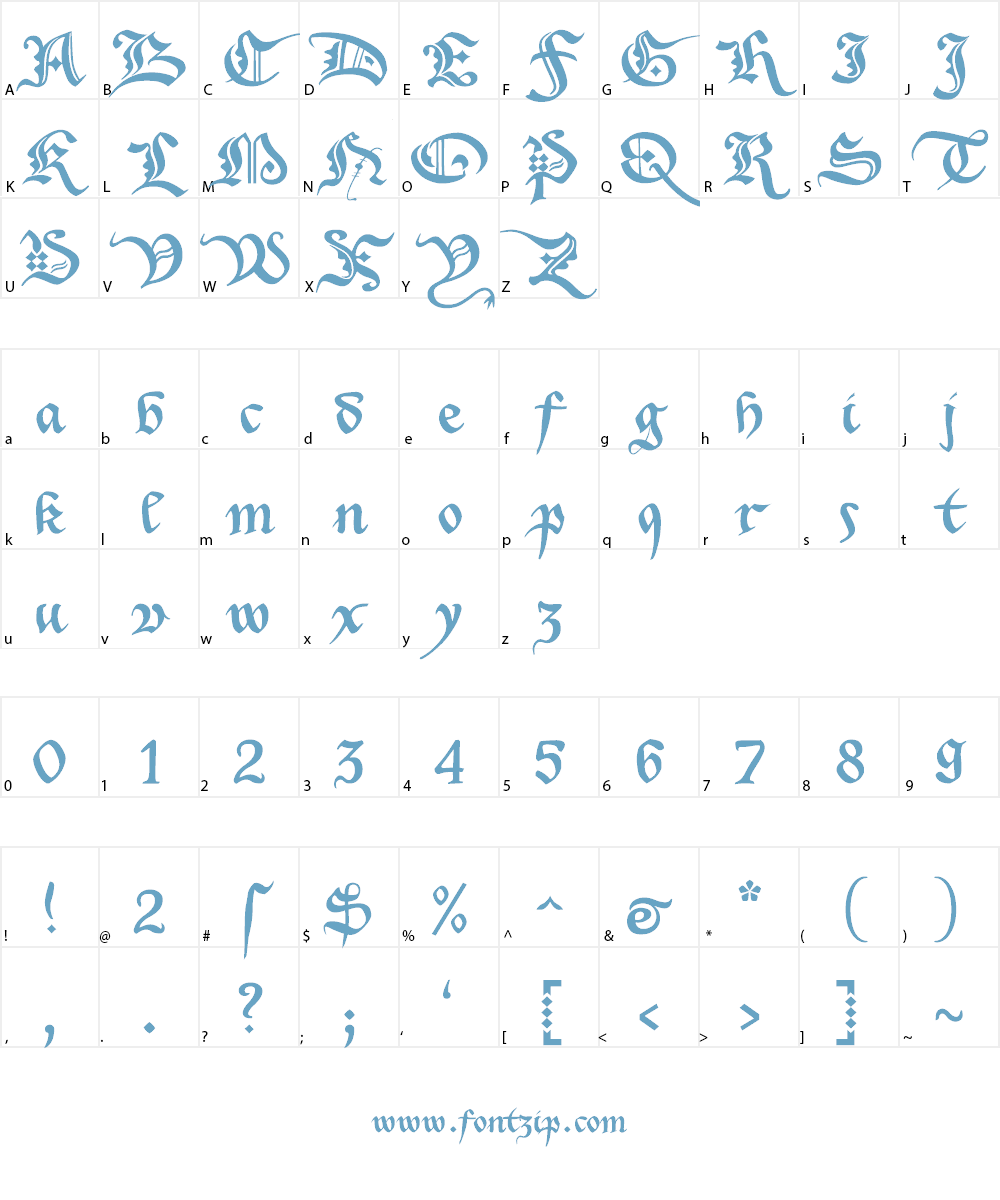
Based on French Bastarda writing and some -- freely handled -- Rotunda capitals, this font has no match in historic documents. It's a first try to combine imitation and imagination.
Just in case the term Rotunda is news to you: this means the style of formal writing used in Italy during those centuries when the rest of Europe was writing Black Letter. They never took to acute angles and steep curves in Italy, neither in architecture -- where they directly moved on from the Romanic style to the Renaissance, leaving the French gothic to the barbarous north -- nor in writing; developing and preferring a style that was clear, and straight, and rounded, and by far better legible than the crammed and distorted Black Letter weaving. It seems however legitimate to tamper with Rotunda capitals, for the original scribes were pretty often given to do it themselves. Lower case letters don't hold much potential for variation, so they took their revenge on the upper case. Invention is mightily at work there, and some writers seem to have deemed it artistic bankruptcy to employ the same shape of an upper case letter twice on the same page, or even in the same chapter. All of which is to say that I didn't go far out of their way by creating some Rotunda capitals of my own.
The name 'Xenippa' is Ancient Greek and means 'having strange (= not one's own) horses'.
Update 2007 has reduced the file size, by redesigning the composite glyps, has added an s that sits on the line, as well as a Yen sign, has corrected the Ldot/ldot, and has moved some of the special characters. These are now
an et ligature on the left curly bracket
an st ligature on the right curly bracket
the new alternate s on the bar and broken bar sign
a double long s on the long s sign
a long s t ligature on the 'not equal' sign
The alternate C and E have gone off to the masculine ordinal indicator (fi, 'less than or equal to' sign) and feminine ordinal indicator (fl, 'greater than or equal to' sign); and the alternate G can be found on the 'divide' sign.
The long s, however, still keeps its place on the number sign.
Update 2010 has enlarged the dashes, has the composite glyphs redesigned (especially the dcaron, Lcaron/lcaron, and tcaron), and has created a new m.